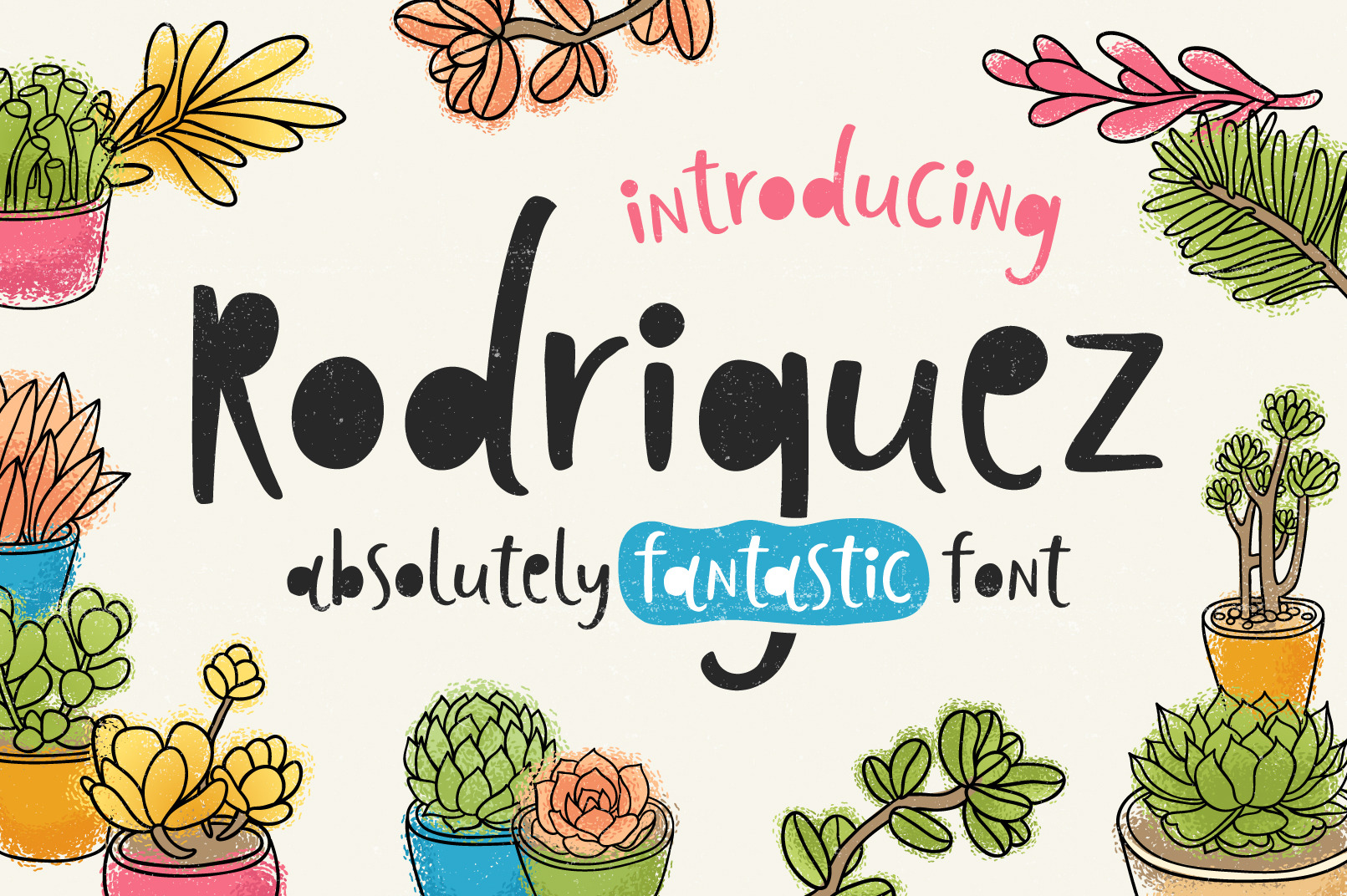
Rodriguez Font
Let me introduce "Rodriguez" - a new bright typeface! It's a display font, perfect for playful apparel, prints, article headlines, web, lettering compositions, print products, t-shirts, and many-many other things! Combine it with some art, and use bright colors! You'll get the font in all main formats + pleasant bonus - a colorful vector set of handdrawn succulents.
But why Rodriguez? Oh, it's a funny and sad story. I'm very bad at growing home plants! My sister knew it and gave me a small succulent, promising that it's strong and unpretentious, and I definitely will not kill it! I gave it a name, Rodriguez, and even Instagram hashtag, #succulentrodriges :) And she was right, Rogriguez continued to grow and has even been transplanted into a large pot... But then, a disaster happened.. my big grey cat Geronimo (#geronimissimo) decided that he will not tolerate any life form in this house! So he killed poor Rodriguez in a very horrible way.. So maybe this font is a funny way to make that poor succulent's life not so useless :) :)